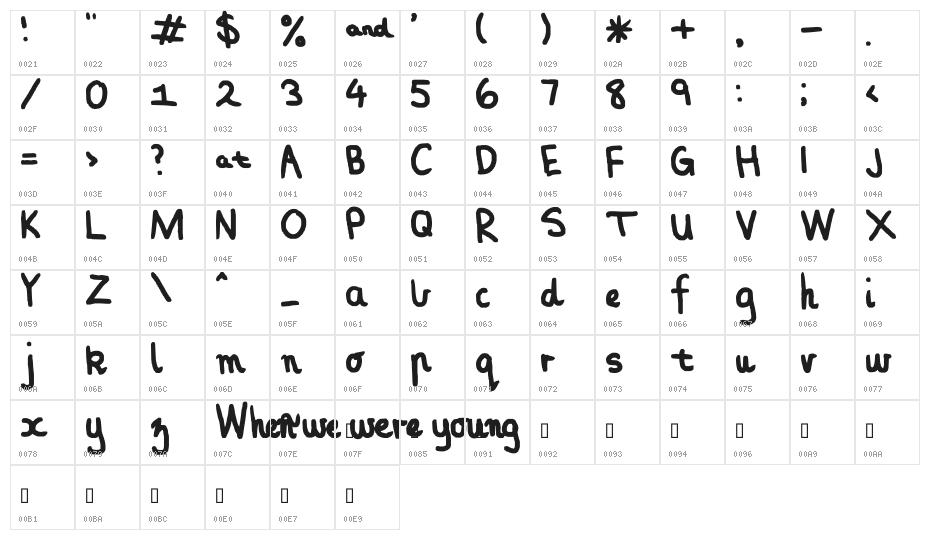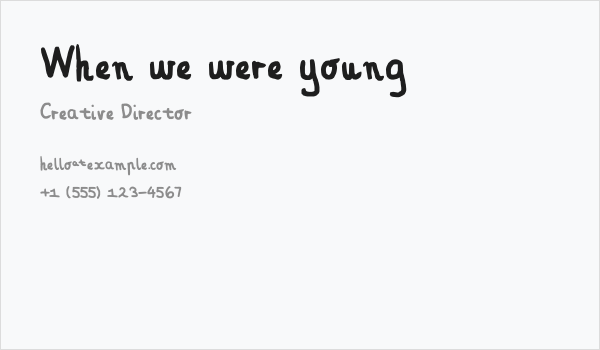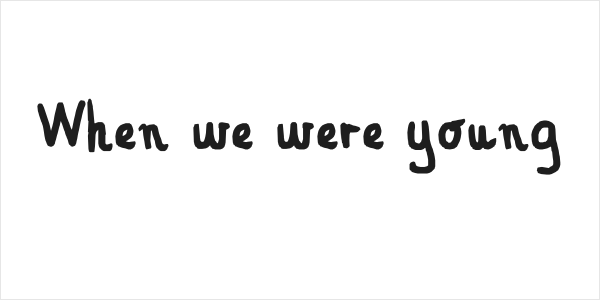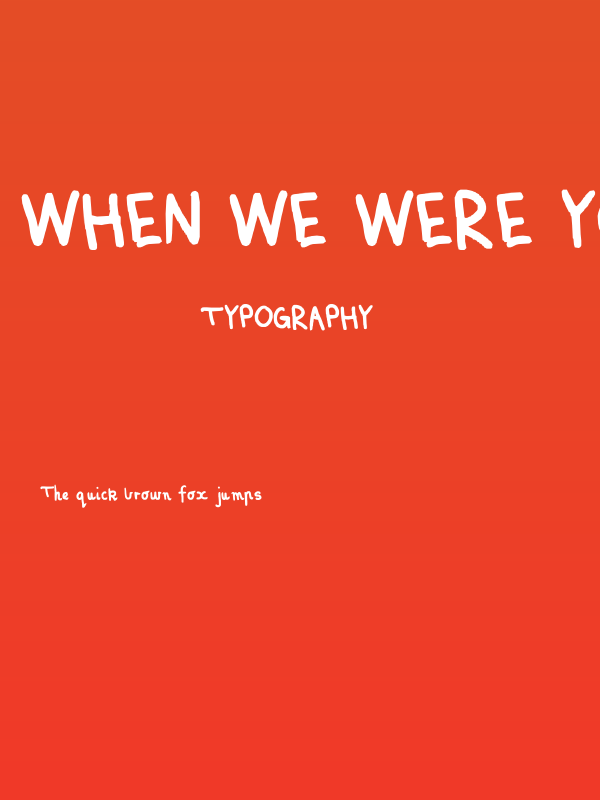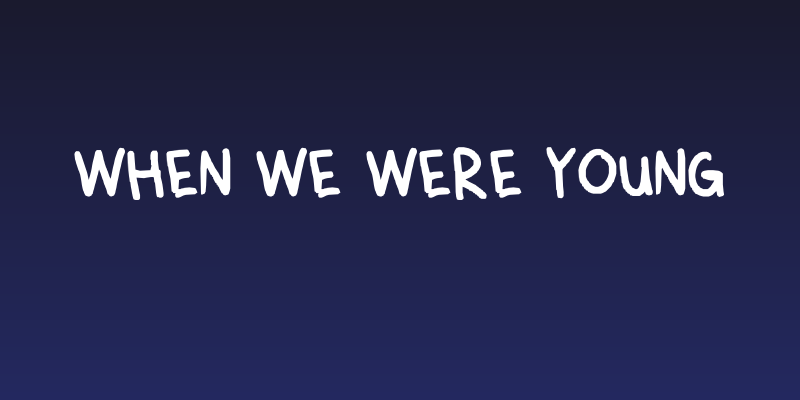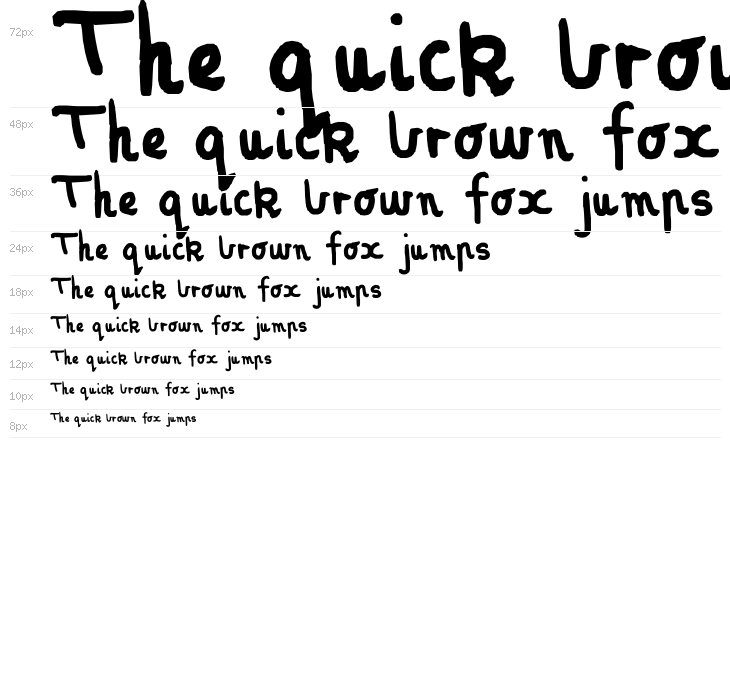
When we were young Font
When we were young Description
This font features a playful, handwritten style with a casual and friendly appearance. The letters are bold and rounded, giving them a soft and approachable feel. The strokes are consistent in thickness, providing a uniform look across all characters. The uppercase and lowercase letters maintain a cohesive style, with slightly exaggerated curves and loops that add to the font's charm. Numbers and special characters follow the same design principles, ensuring a harmonious overall appearance. This font is perfect for projects that require a personal touch or a whimsical vibe.
Overall StyleCasual
Use CaseHeadlines, Logos, Informal Text
Proposed ProjectsIdeal for children's books, greeting cards, playful branding, and informal invitations.